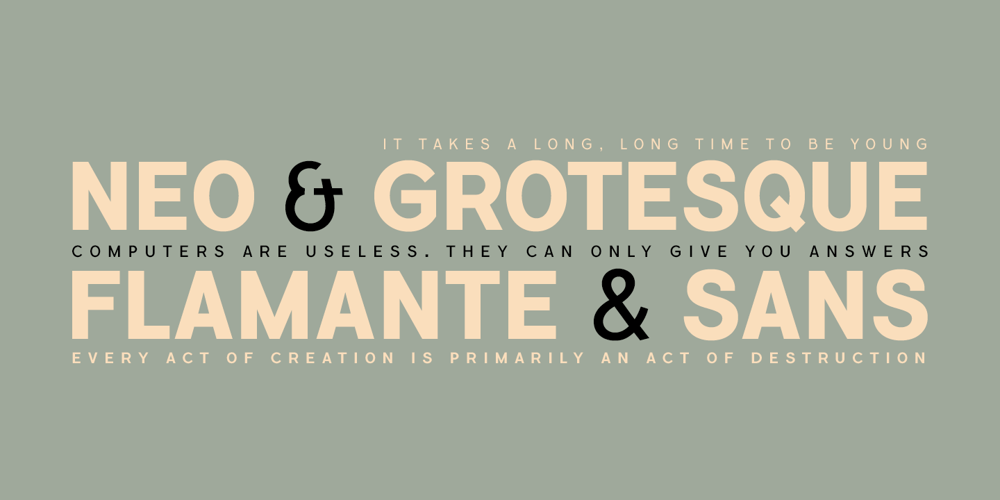
Flamante Sans Font Family was designed by Fernando Haro and published by deFharo. Flamante Sans contains 8 styles and family package options. Flamante Sans is a group of eight corporate typographies of geometric construction, without serifs and neo-grotesque style, are fonts with an excellent readability for titles, short texts or for use in signage. The group of fonts is made up of 4 weights: Light, Book, Medium & Bold plus their respective italics. This initial development of Flamante Sans typography has been the basis for the drawing of the “Flamante family” fonts composed of 5 styles (Sans, Serif, SemiSlab, Round & Stencil) making a total of 40 fonts that are perfect corporate use, advertising or editorial titles or signage of public spaces for example. They include the Bitcoin symbol. Swiss-style fonts built on a 4 ◊ 6 building grid, formed with 144 x 119 units (Medium version), two digits taken from the fibonacci and Perrin sequences, these measures define the width and height of the vertical and horizontal antlers and the overall proportion of the font. The metrics and kerning have been carefully set up for fluent reading in paragraph texts. ================================== – OpenType Features: Standard Ligatures, Additional languages, All Alternates, Alternate Annotation Forms, Superscript, Kerning, Superiors, Capital Spacing, Localized Forms, Superior letters, Discretionary Ligatures, Subscript, Fractions, Slashed Zero, Inferiors, Extended Fractions, Scientific Inferiors, Ordinals, Denominators, Oldstyle Figures, Numerators, Historical Forms, Historical Ligatures. They include the Bitcoin symbol. – 500 glyphs. Latin Extended-A ï OTF & TTF